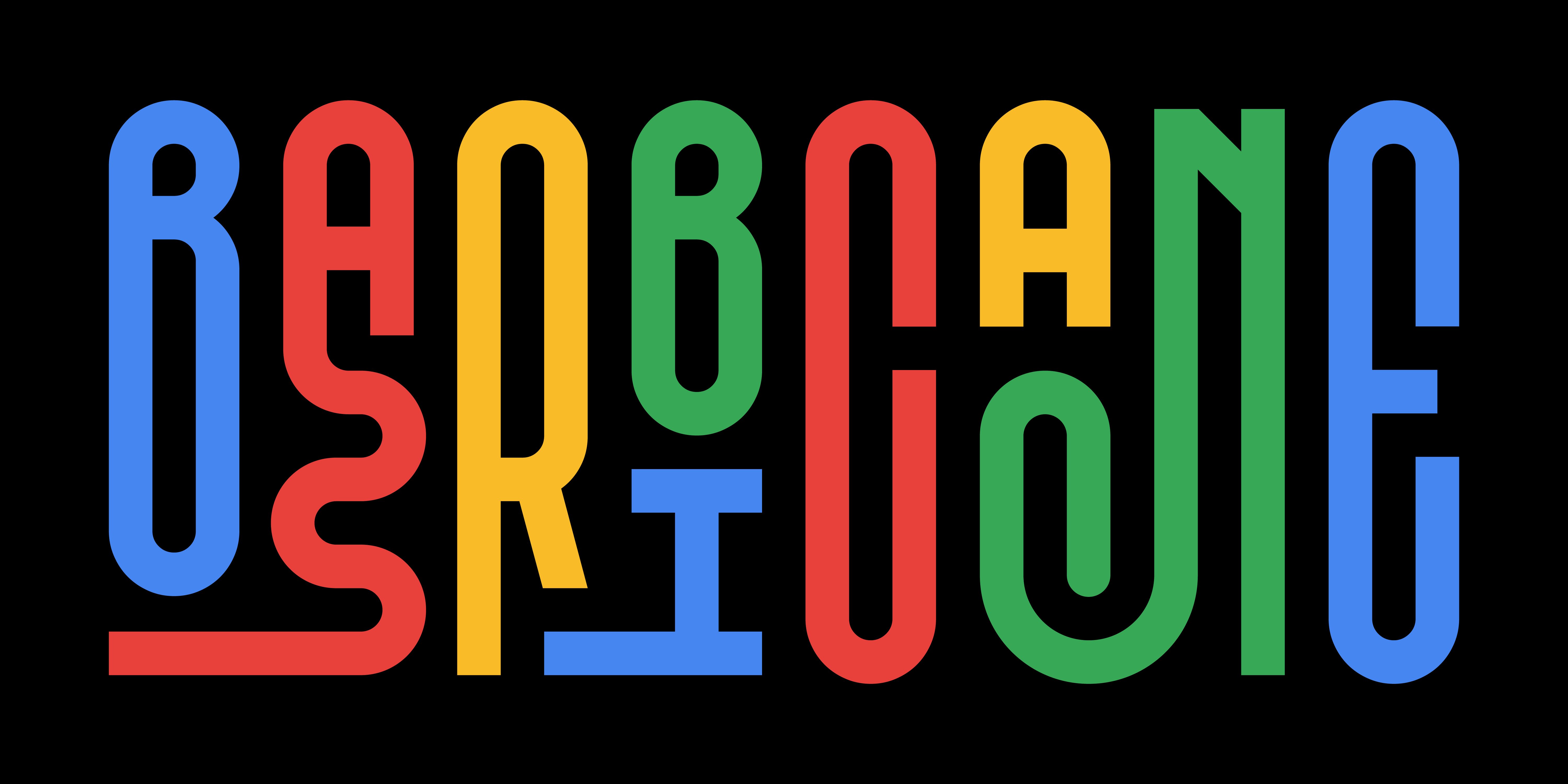
SK Barbicane Font Free Download
SK Barbicane Font is perfect for steampunk branding, vintage science fiction publications, industrial design projects, Victorian-era themed restaurants, retro-futuristic gaming, antique machinery marketing, historical engineering exhibits, and classic adventure storytelling.
SK Barbicane Font is exciting because it captures the ingenious spirit and mechanical precision of Victorian-era innovation through its distinctive character design that embodies the adventurous engineering of Jules Verne's imagination and the bold craftsmanship of industrial revolution pioneers. Its steampunk styling and retro-futuristic appeal make it the perfect choice for brands that want to communicate innovation, adventure, and the fascinating blend of classical mechanics with visionary imagination.
SK Barbicane Font family includes multiple Victorian variations: SK Barbicane Light, SK Barbicane Regular, SK Barbicane Bold, SK Barbicane Steam, SK Barbicane Gear, and SK Barbicane Industrial, along with mechanical decorative elements and steampunk symbols, providing designers with comprehensive tools for creating authentic Victorian and steampunk-themed brand experiences.
When exploring steampunk typography solutions, SK Barbicane Font Free Download stands out as the premier choice for designers working on retro-futuristic and Victorian projects that require genuine steampunk sophistication and adventurous appeal. This innovative typeface embodies the essence of Victorian engineering while offering the versatility needed for modern entertainment marketing and alternative culture communications. The font's mechanical character and steampunk resonance create immediate connections with audiences who appreciate alternative history and imaginative technology.
Creative professionals consistently rely on SK Barbicane Font for projects requiring authentic steampunk sophistication and powerful adventurous appeal. Its expertly crafted letterforms feature mechanical influences that work exceptionally well in both large-scale steampunk convention displays and intimate vintage-themed product packaging applications. The font's ability to convey innovation and adventurous spirit while maintaining strong brand recognition makes it invaluable for comprehensive identity systems in the alternative entertainment, vintage design, and retro-futuristic experience sectors.
Whether you're developing steampunk event identities, creating vintage science fiction marketing materials, or designing alternative history promotions, SK Barbicane Font delivers the authentic Victorian character and adventurous appeal that resonates with audiences who appreciate imaginative engineering and alternative cultural expressions. Its steampunk significance and innovative design ensure your projects capture the fascinating blend of classical mechanics and visionary imagination while maintaining contemporary professional standards that attract modern alternative culture enthusiasts.